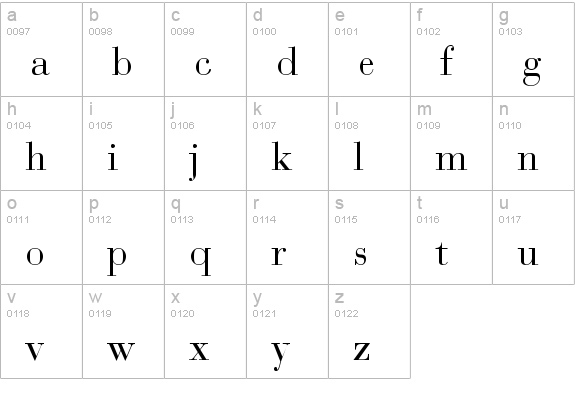
Bauer Bodoni Std 1 Roman Font Details
Bauer Bodoni Std 1 Roman font is a timeless and elegant typeface that exudes sophistication and class. With its graceful serifs and clean lines, this font is perfect for adding a touch of refinement to any design project. The Bauer Bodoni Std 1 Roman font is a versatile choice that can be used for a variety of purposes, from branding to editorial design. The best part is that this exquisite font is available for free download at FontsMarket.com. So whether you're working on a personal project or a professional assignment, you can easily access this beautiful typeface without any cost. Don't miss out on the opportunity to elevate your designs with the Bauer Bodoni Std 1 Roman font – download it for free today!